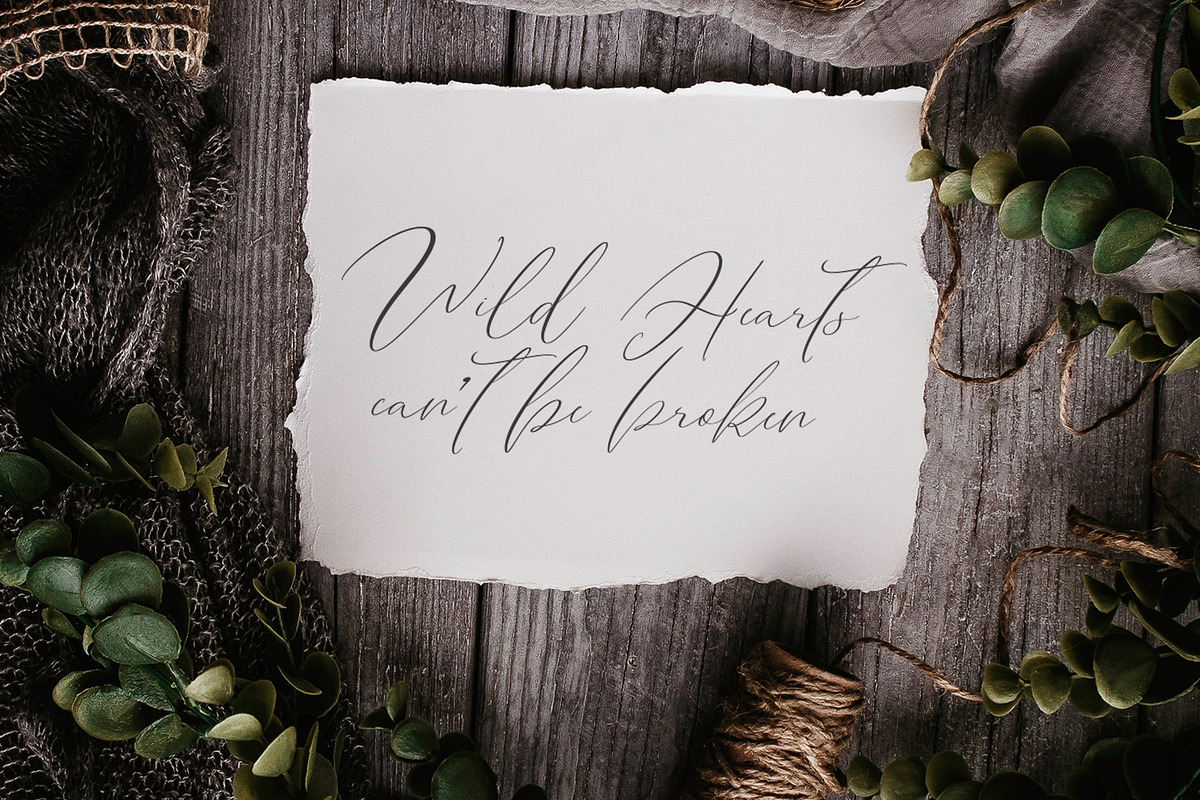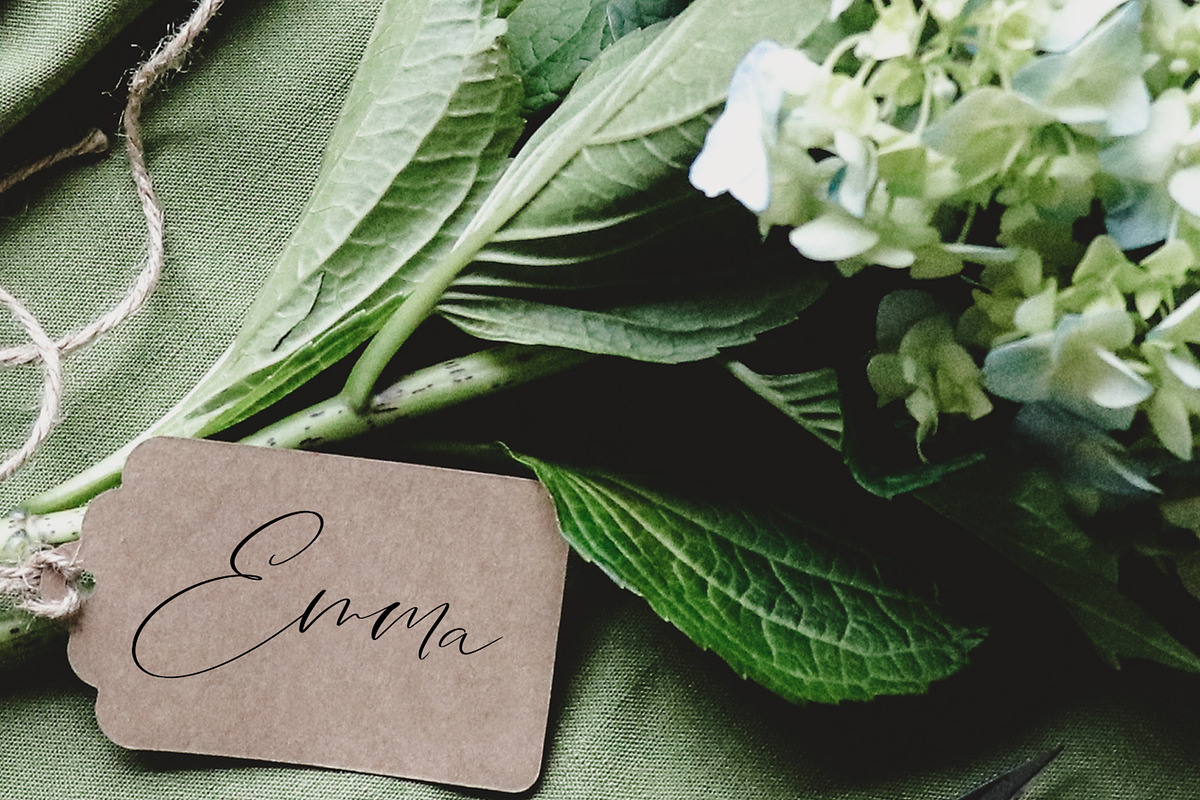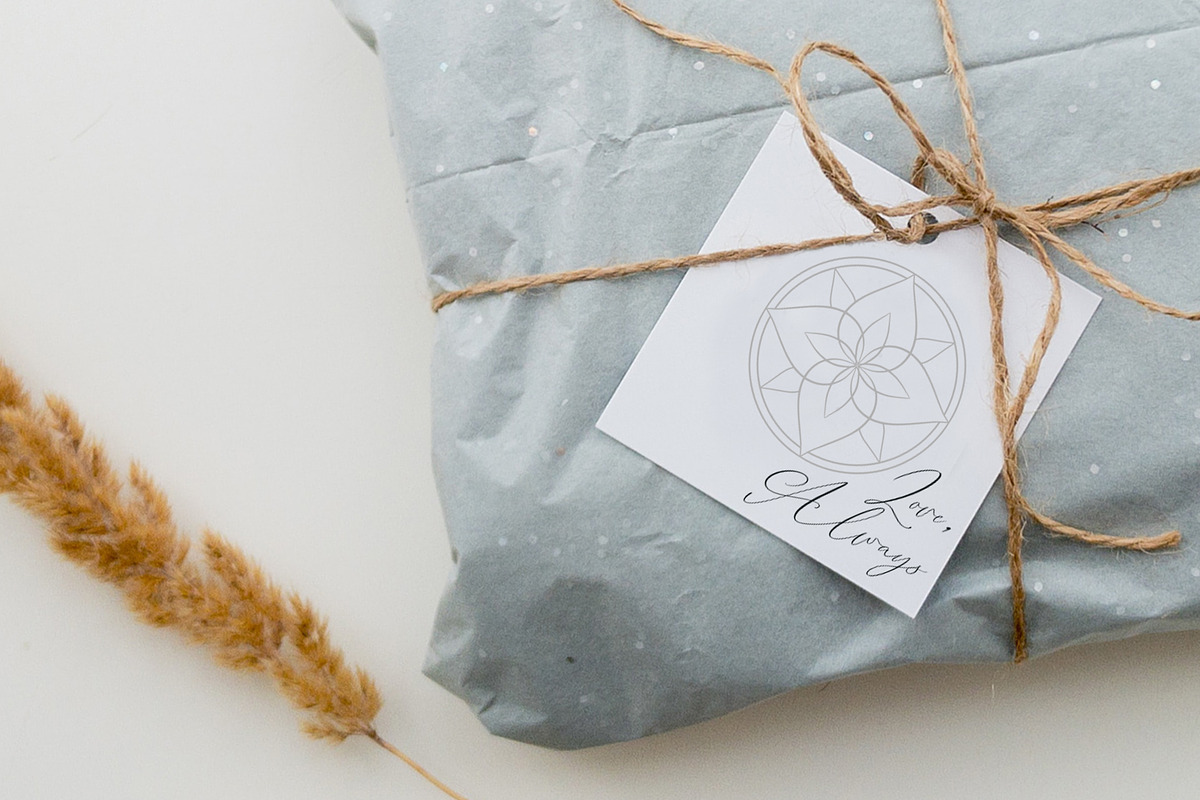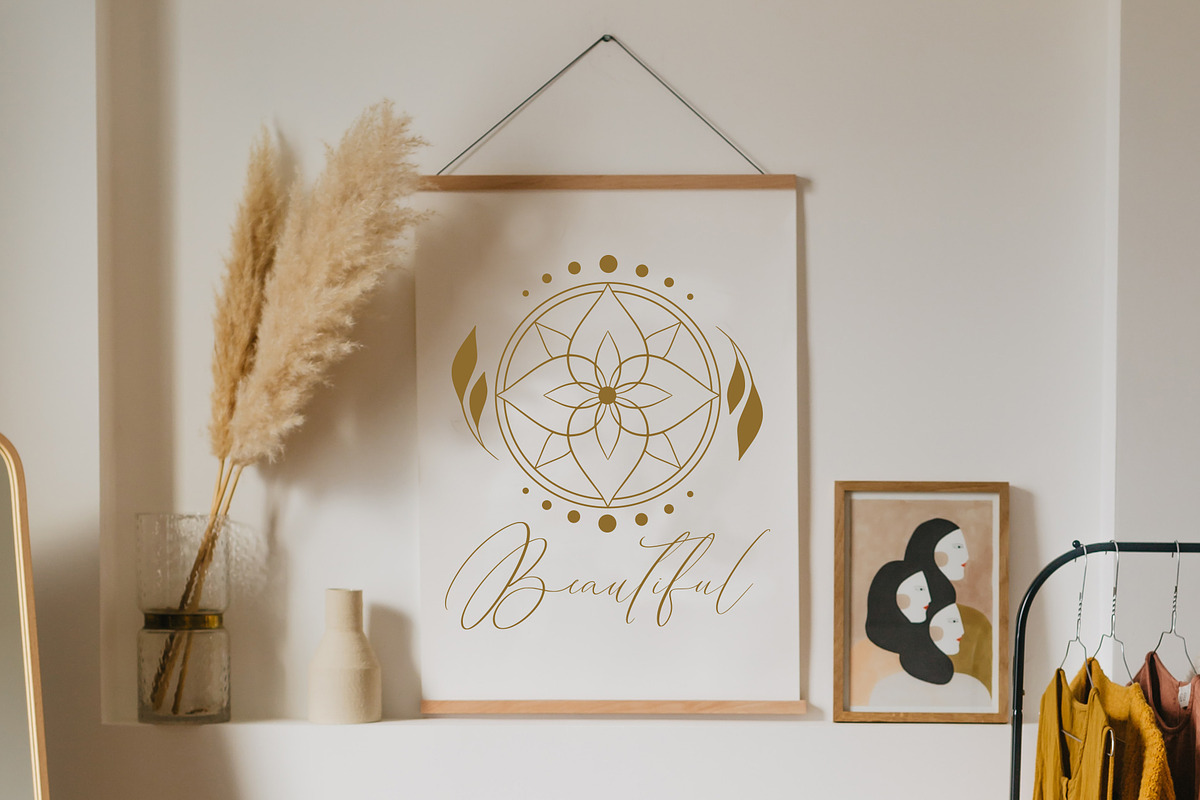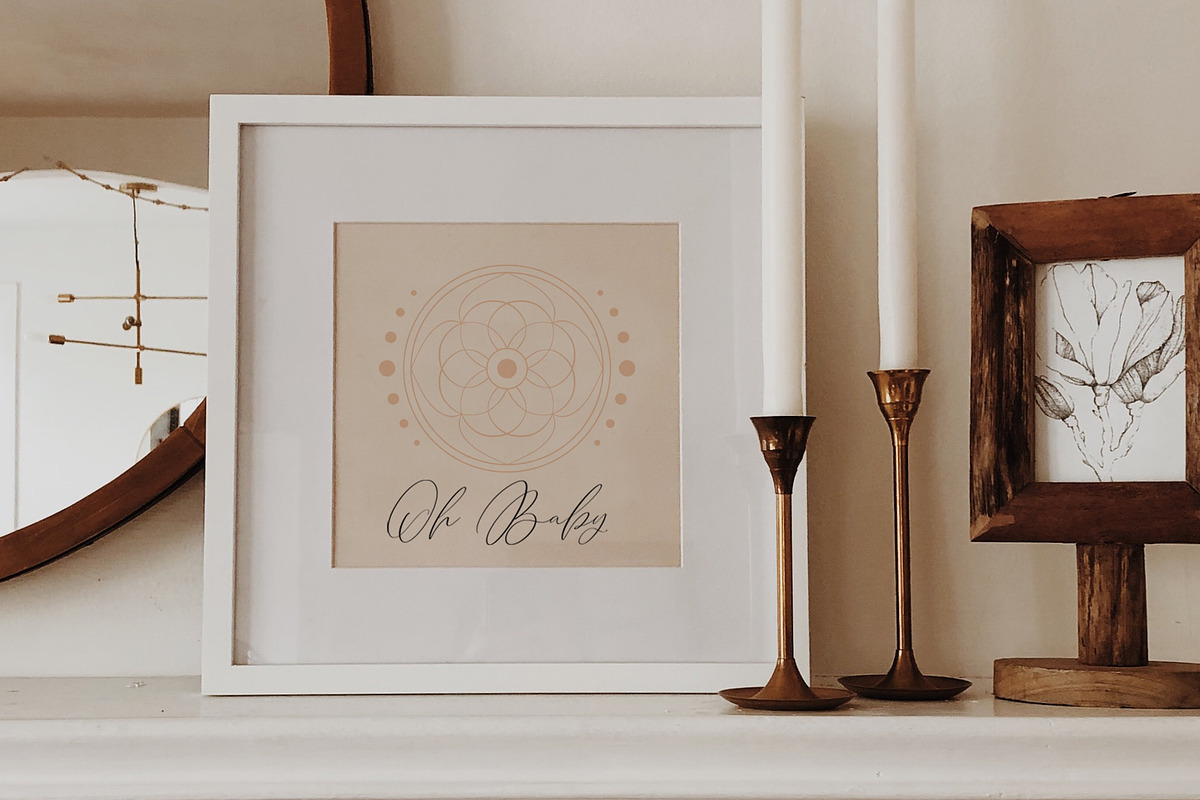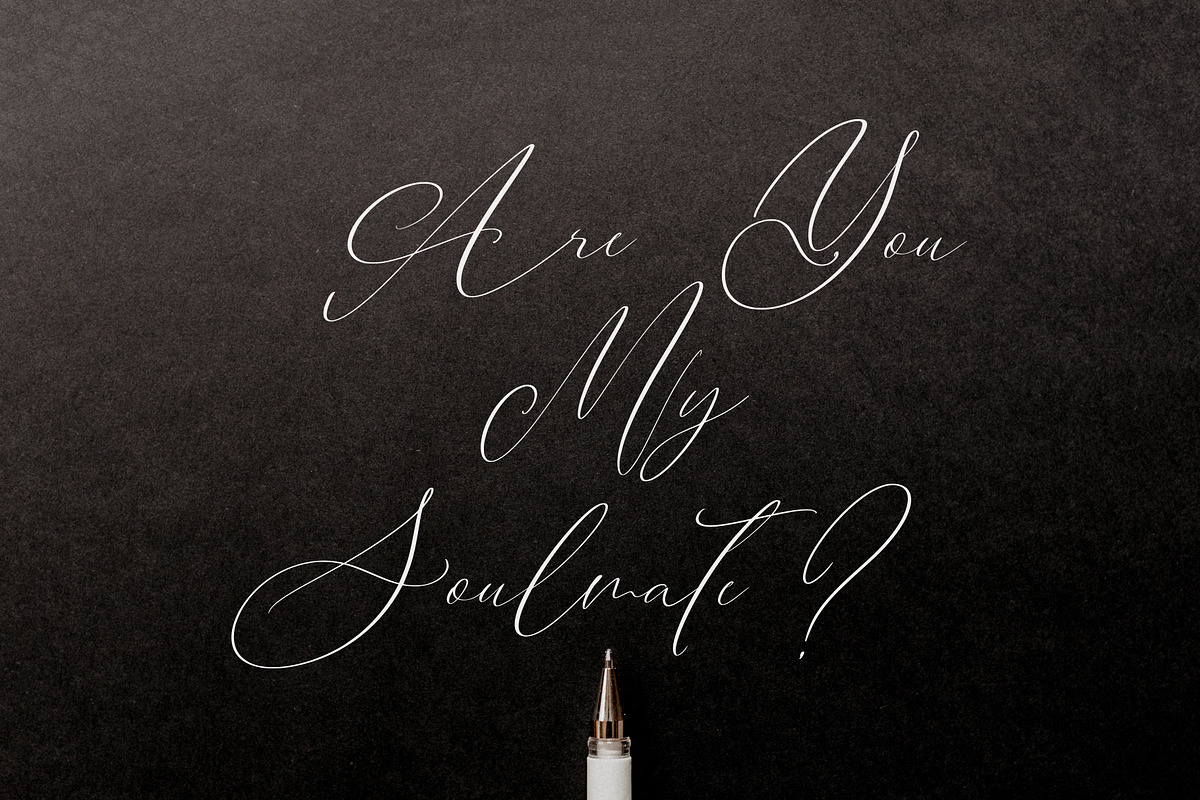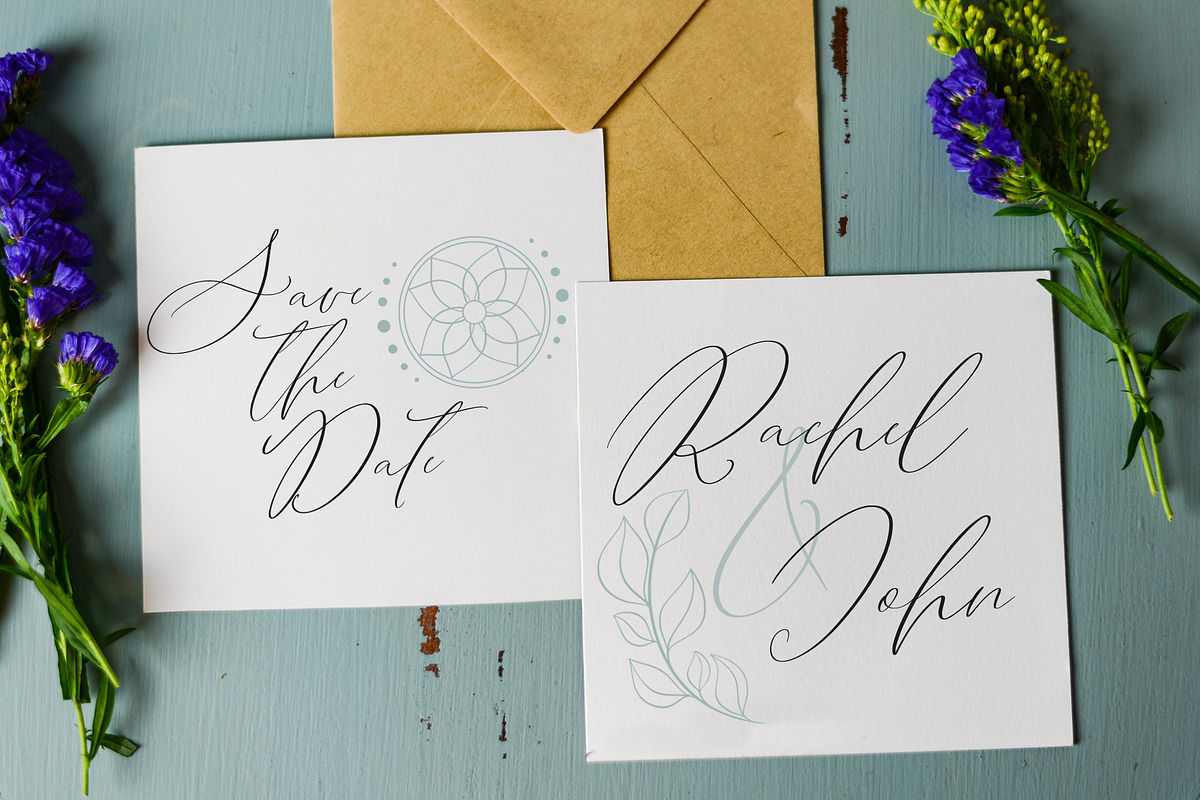
Black Cabaret Script Font & Logos
Black Cabaret Script Font & Logos - elegant modern calligraphy script font with alternates and logo elements
Why Black Cabaret Script Font & Logos is worth a look
Black Cabaret Script Font & Logos by CallMeStasia fits naturally into Branding, posters, packaging, typography.